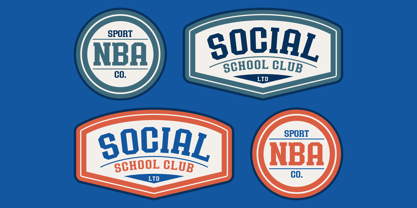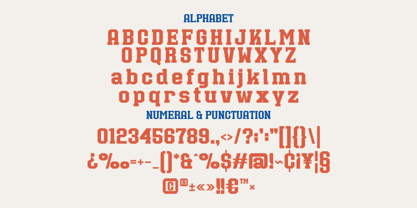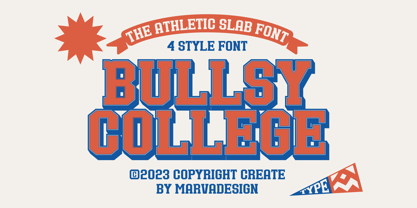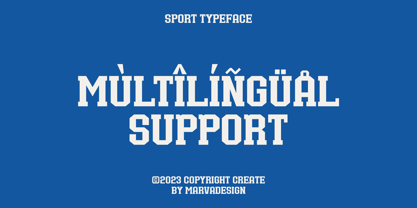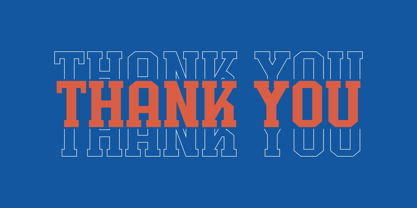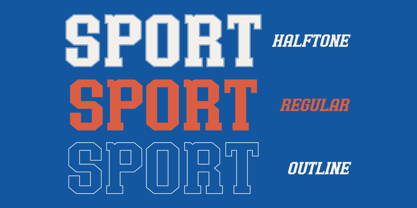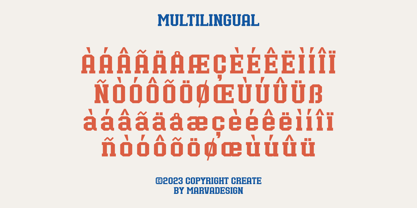
Bullsy College
by Marvadesign
The Bullsy College Font Family was designed by Febrie Setiawan and published by Marvadesign. Bullsy College contains 4 styles and family package options. More about this family
Introducing Bullsy College is a bold and structured athletic slab typeface, designed to evoke a classic collegiate and sports-themed aesthetic. It features thick, blocky letterforms with strong geometric construction, making it highly legible and impactful.
This typeface includes multiple styles, such as regular, outline, and halftone variations, allowing for versatile applications in branding, apparel, and sports-related designs. The primary color scheme used in the samples—orange, blue, and white—reinforces a dynamic and energetic visual identity, reminiscent of American collegiate sports teams.
Each character is meticulously crafted with sharp edges and consistent stroke widths, embodying a vintage sports typography style. The inclusion of outlined and halftone versions further enhances its adaptability for layered and textured design compositions. This font is ideal for use in logotypes, team emblems, banners, and other graphic applications where a bold and confident presence is required.
Designers: Febrie Setiawan
Foundry: Marvadesign